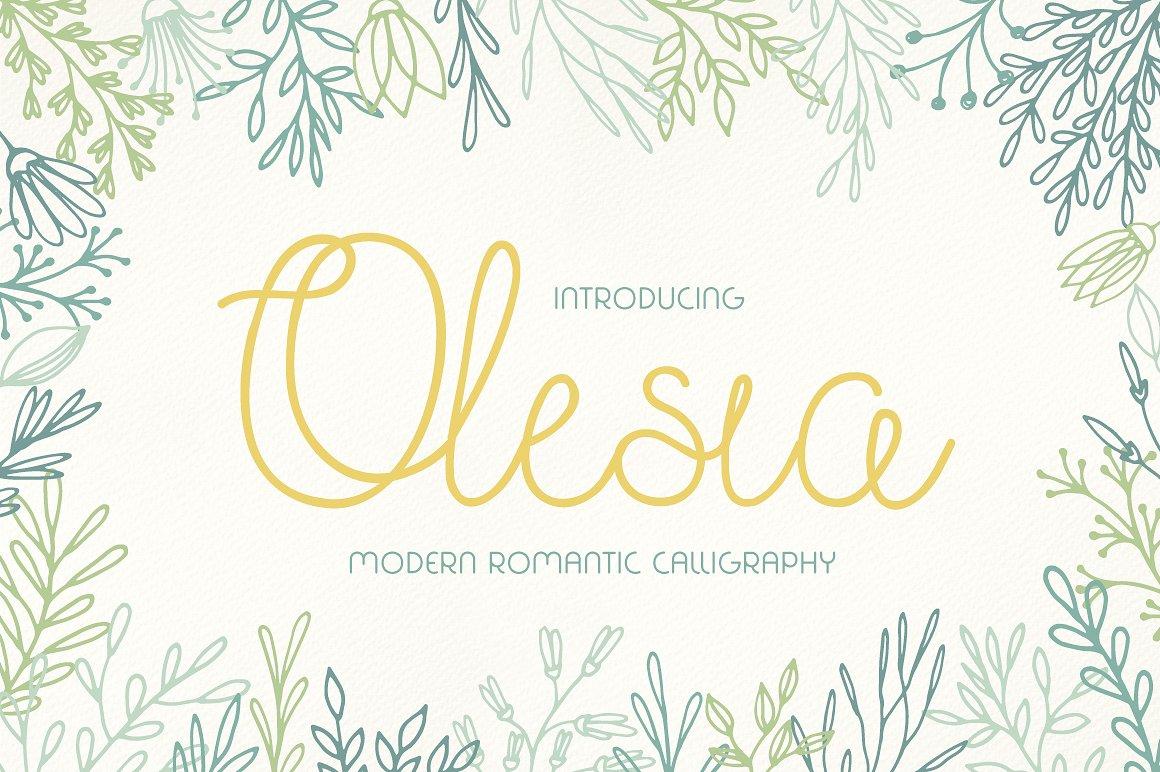
Olesia is a free handwriting font characterised by curly swashes and loops that give it a natural and romantic feel. Designed and released by Julia Dreams.
Olesia is a script typeface with a difference: its extra loops and curly swashes, on letters like ‘b’ and ‘E’, add a charmingly care-free air that it lends to any design it’s used in.
Ideal as a display face, whenever you need to inject a natural, feminine, or romantic, feel into a design. Perfect for healthy food packaging, travel guides, or even a fahsion brand, use Olesia to make that all-important human connection between company and user.
Packed with personality, the generous proportions and distinctive letter forms, make Olesia a highly-usable script face.